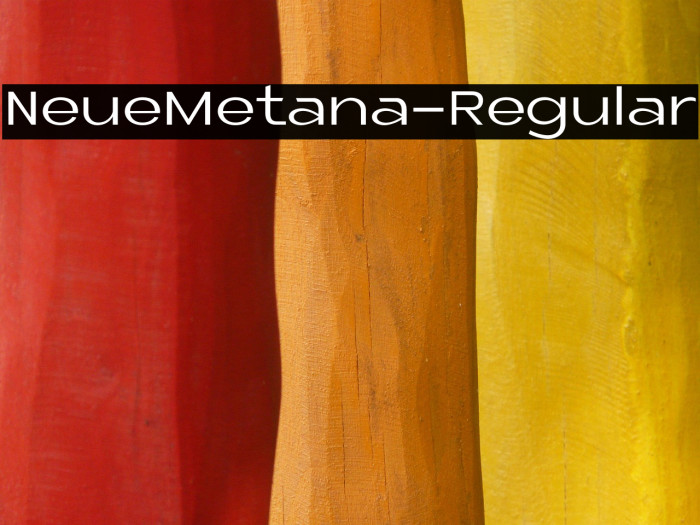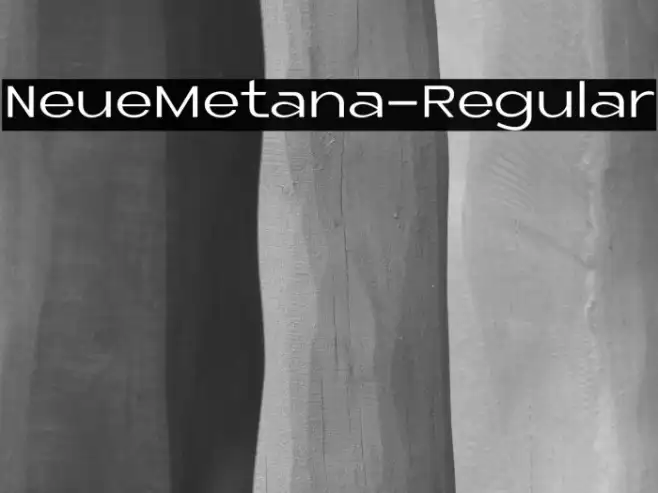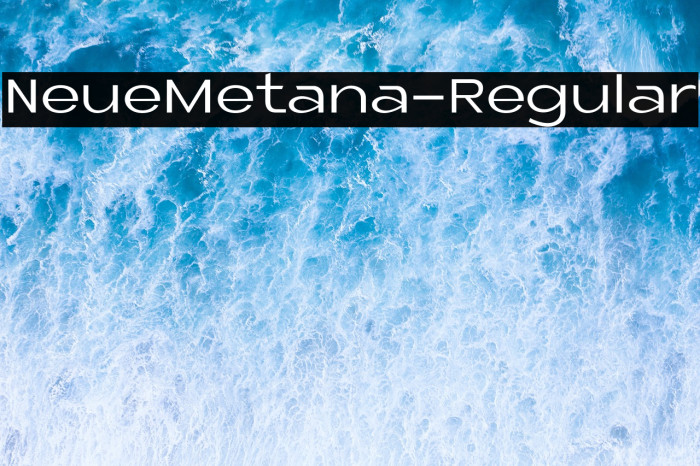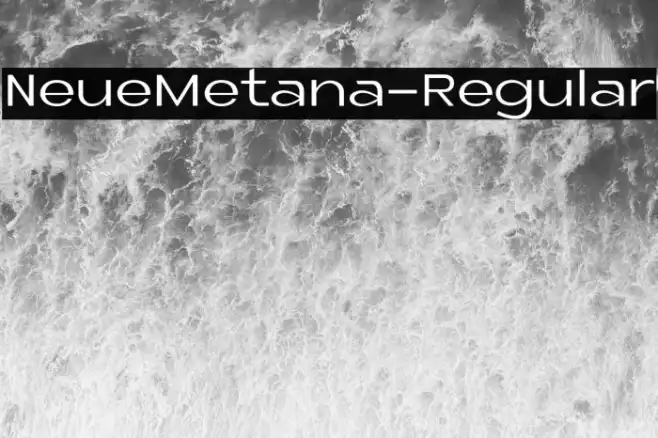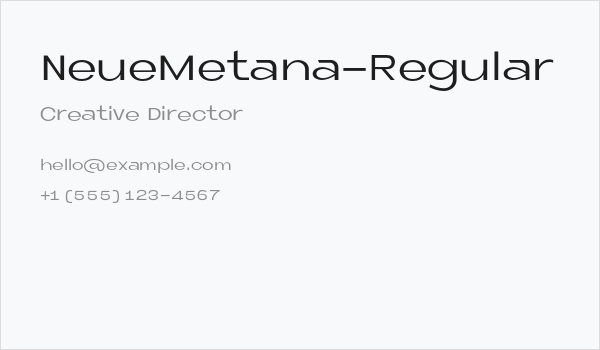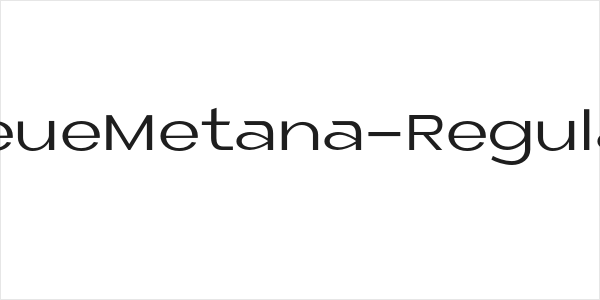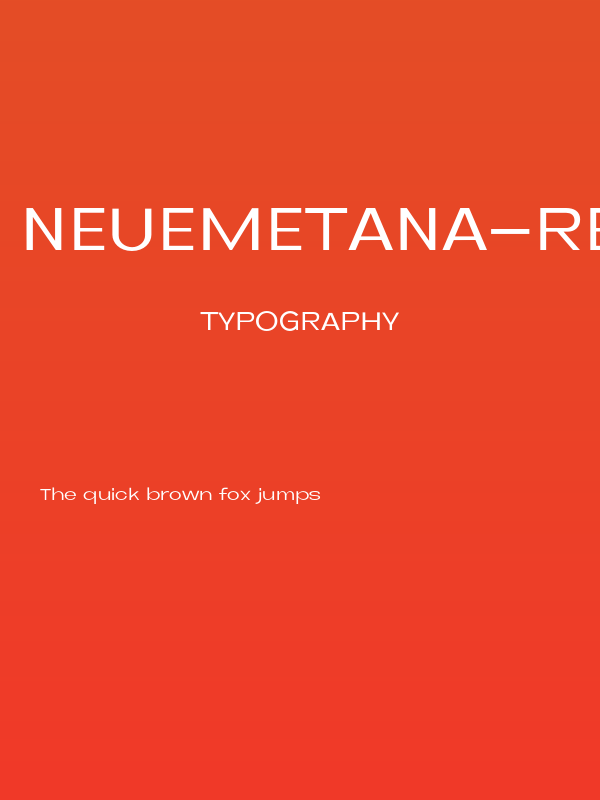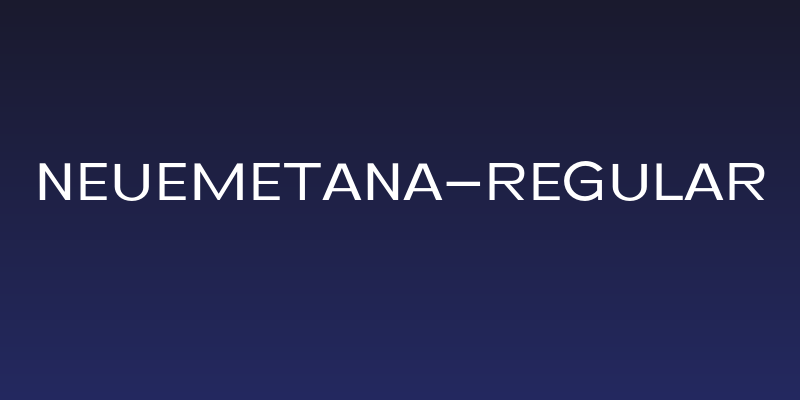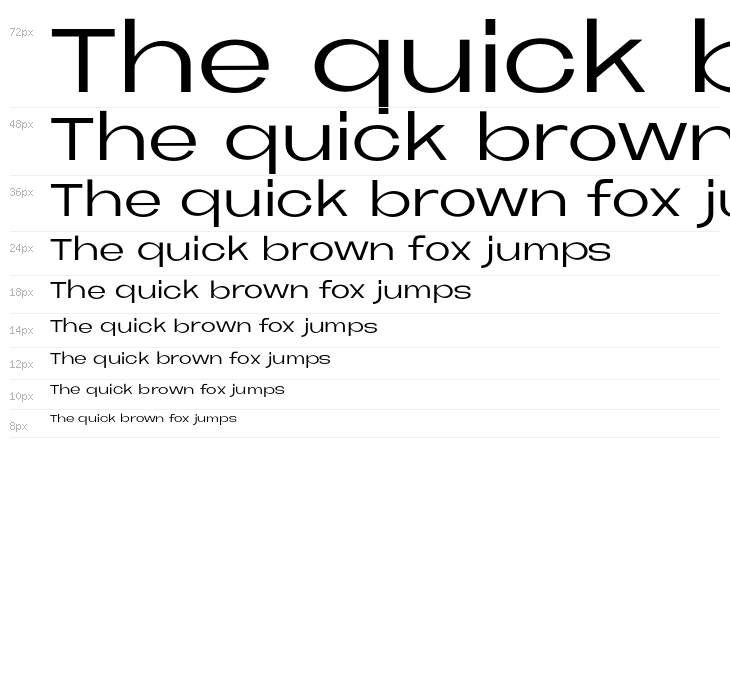
NeueMetana-Regular Font
NeueMetana-Regular Description
This font features a clean and modern sans-serif design with a geometric structure. The characters are well-balanced, offering a harmonious appearance that is both professional and approachable. The uppercase letters are bold and assertive, while the lowercase letters maintain a friendly and open feel. The numerals are clear and easy to read, making them suitable for various applications. Special characters are included, providing versatility for different uses. The overall design is sleek and contemporary, making it ideal for modern branding and digital interfaces.
Use CaseHeadlines, Body text, Logos
Proposed ProjectsIdeal for branding, digital interfaces, corporate materials, and editorial design.